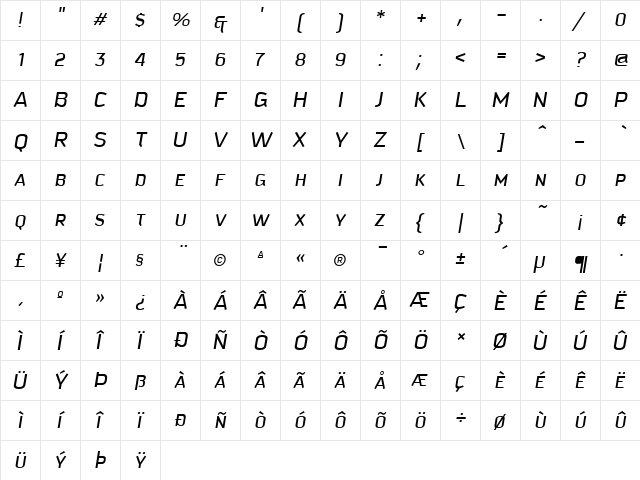
Kautiva Caps Italic
Design Context for Kautiva Caps Typeface
Kautiva Caps offers clean, dependable letterforms without strong stylistic allegiance, making it a practical choice for designers who need flexibility. The dynamic lean of this cut emphasises speed and emphasis in any layout.